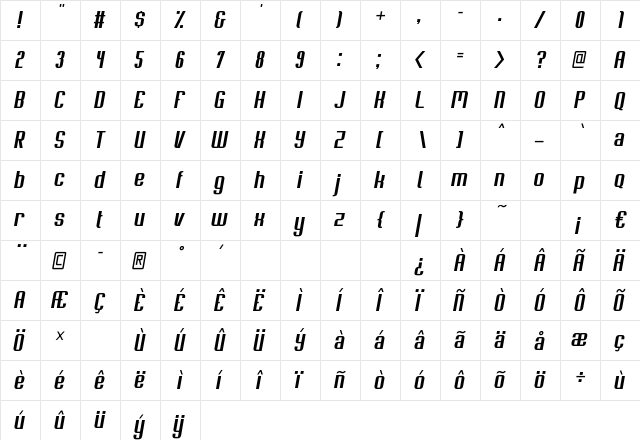
Soupertrouper Oblique
Design Context for Soupertrouper Typeface
Soupertrouper offers clean, dependable letterforms without strong stylistic allegiance, making it a practical choice for designers who need flexibility. The dynamic lean of this cut emphasises speed and emphasis in any layout.
Pro Tip: Try Soupertrouper for annotation and caption copy alongside an upright companion — the contrast in angle creates a dynamic but ordered typographic system.